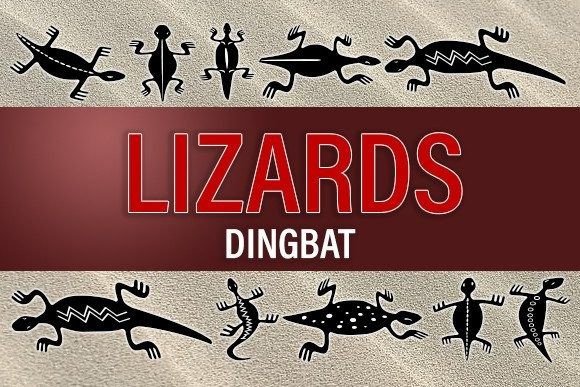
Lizards Font
Prepare yourself to embark on a typographic adventure with Lizards Font, a dingbat font that's sure to cast a spellbinding charm on your designs. Crafted with precision and an artistic flair, this font is not just a collection of symbols; it's a gateway to a world of limitless creativity.
With Lizards, you'll have at your fingertips a treasure trove of enchanting symbols, each meticulously designed to ignite your imagination and elevate your designs. From posters and flyers to presentations and social media graphics, Lizards is your trusty companion, ready to transform your ideas into captivating visual masterpieces.
Picture this: a poster adorned with Lizards' enchanting symbols, drawing the eyes of passersby like moths to a flame. The intricate lines and captivating forms dance together, creating a symphony of visual delight that speaks volumes without uttering a single word. Or envision a flyer announcing an upcoming event, its message amplified by Lizards' bold and captivating presence.
Let Lizards be your artistic ally, empowering you to weave tales and convey messages with the sheer power of symbols. Its versatility knows no bounds, making it an indispensable tool for designers of all stripes. Whether you're a seasoned pro or just starting your creative journey, Lizards will be your faithful companion, helping you unleash your inner artist and captivate your audience.
So, dive into the world of Lizards Font and let your creativity soar. Embrace the boundless possibilities it offers and watch as your designs transform into captivating works of art. Get ready to leave an indelible mark on the world, one symbol at a time.